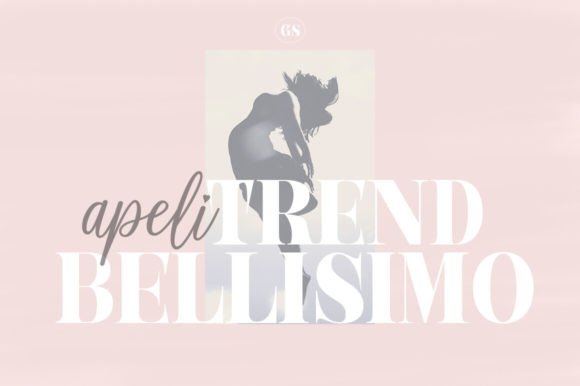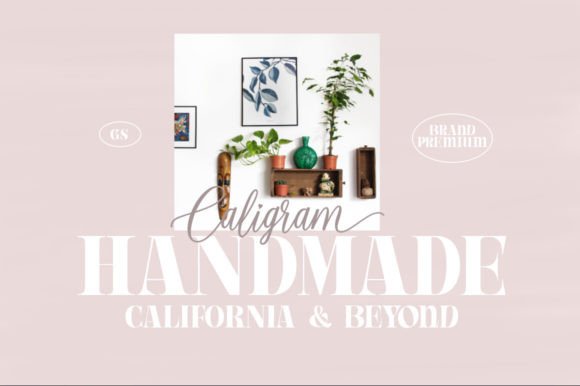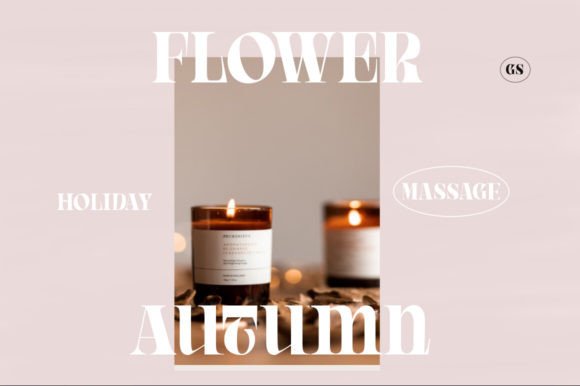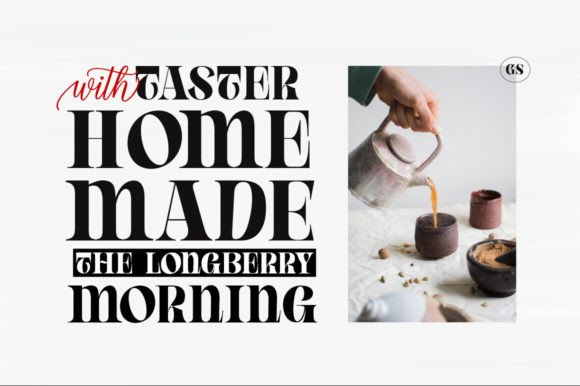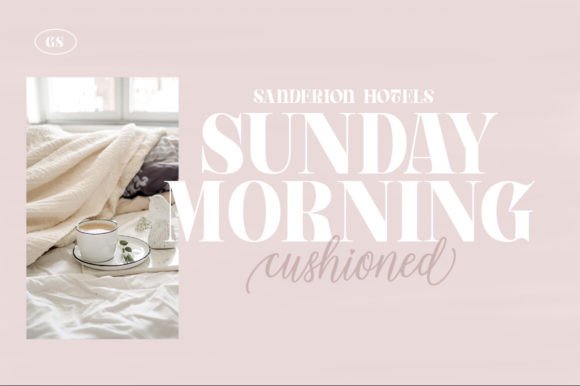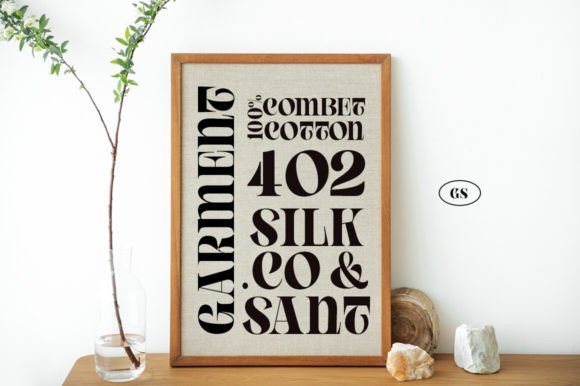
Groute Font: Elevate Your Designs with Elegance and Sophistication
In the world of typography, a well-crafted font can make all the difference in elevating your designs to the next level. Introducing Groute Font, an elegant serif typeface that embodies the perfect blend of luxury, beauty, and creativity. Specially designed for uppercase letters, Groute Font is a masterpiece that will transform your designs into stunning works of art.
Inspired by Nature’s Bold Beauty
Groute Font draws inspiration from the bold, natural look of serifs, which are so beautiful for today’s fashion. The font’s creator aimed to craft a typeface that exudes elegance, sophistication, and balance. The result is a font that is not only visually stunning but also versatile and highly adaptable to various design applications.
Key Features of Groute Font
- Uppercase Letters: Groute Font features a comprehensive set of uppercase letters, carefully designed to convey luxury and refinement.
- Numbers and Punctuation Marks: The font includes a range of numbers and punctuation marks, ensuring that you have everything you need to create beautiful text.
- Script Version: For added versatility, Groute Font also comes in a script version, perfect for designs that require a touch of elegance and whimsy.
Groute Font is an excellent choice for designers and crafters looking to add a touch of sophistication to their projects. Here are some ideal applications for this stunning font:
- Invitation Designs: Create beautiful wedding invitations, event invitations, or party invites that exude luxury and refinement.
- Logos & Branding: Use Groute Font to craft a memorable brand identity that conveys elegance and sophistication.
- Photography: Add a touch of class to your photography with Groute Font, perfect for watermarks, captions, or title cards.
- Advertising: Create eye-catching ads that stand out with Groute Font’s bold, yet refined design.
- Product Packaging: Elevate your product packaging with Groute Font, adding a touch of luxury to your brand’s offerings.
- Social Media Posts: Make your social media posts stand out with Groute Font, perfect for creating engaging and stylish content.
- Labels and Wedding Designs: Use Groute Font to create beautiful labels, wedding stationery, and special event designs that exude elegance and refinement.
Why Choose Groute Font?
With Groute Font, you can expect:
- Elegance: A sophisticated and refined design that elevates your projects.
- Versatility: A font that adapts to various design applications, from logos to social media posts.
- Quality: A carefully crafted font with attention to detail, ensuring a high-quality finish.
Groute Font is an exceptional addition to any designer’s toolkit. Its elegant serif design, versatility, and high-quality craftsmanship make it the perfect choice for creative projects that demand sophistication and luxury. Whether you’re a designer, crafter, or DIY enthusiast, Groute Font is sure to inspire your next project and help you create stunning designs that leave a lasting impression.